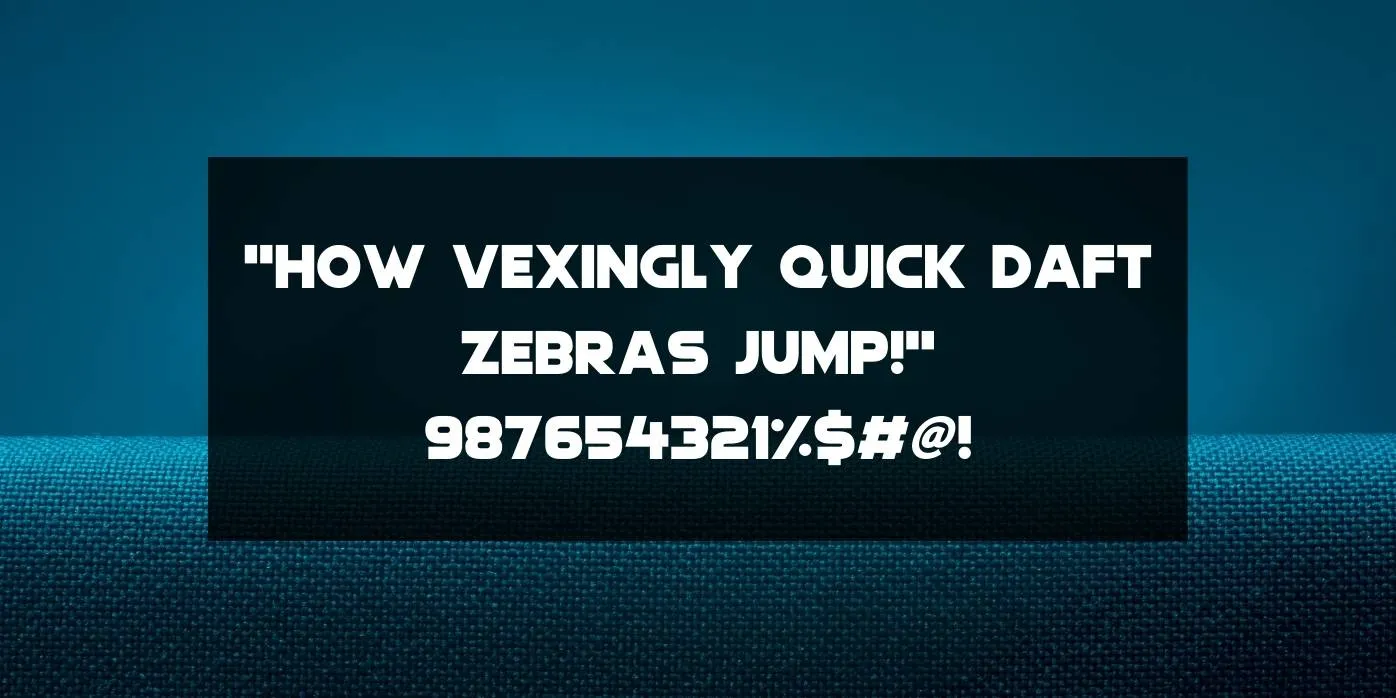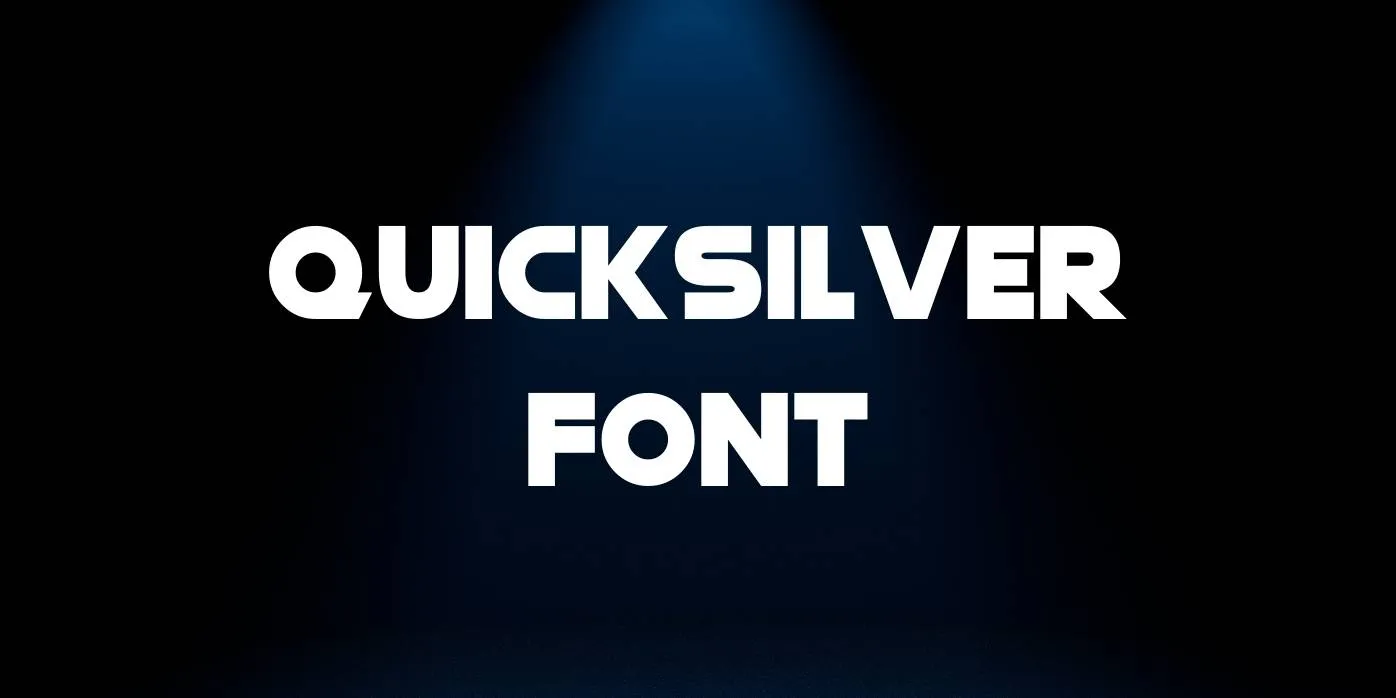
Quicksilver Font
In this article, we present Quicksilver Font which belongs to the sans serif family of fonts. This typeface was designed by Darrell Flood.¬† The aim of this font is to provide a humanist Sans Serif typeface with a design that is highly influenced by the style of Font Bureau’s earlier Prima Sans. In addition, Quicksilver attempts to bring back some of the warmth and personality that is often lacking in contemporary sans serifs. If you are looking for a sans serif Typeface with a bit more personality, then Quicksilver is definitely worth checking out.
It is available in both regular and bold weights. It is not a part of google fonts. You can use clearview font which has the same style and characters as this one. The main features of Quicksilver include its tall x-height, wide proportions, open counters, and low contrast strokes.
These give it a very friendly and approachable appearance that makes it perfect for use in branding and web design. The text generator tool is a very advanced facility of this family.